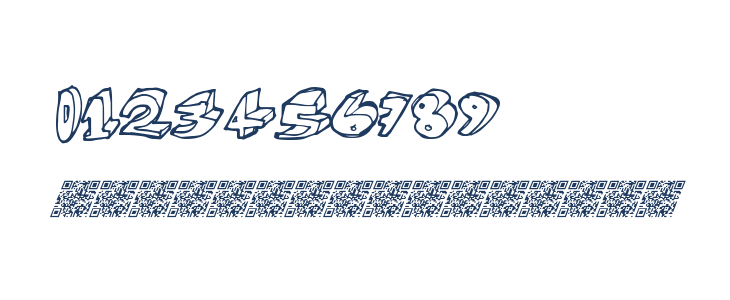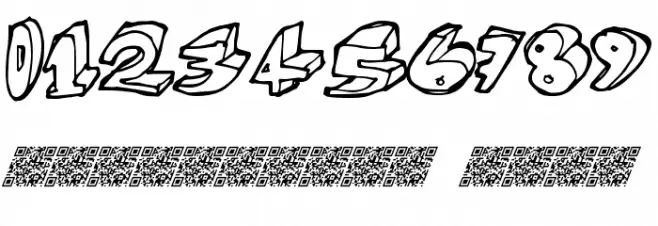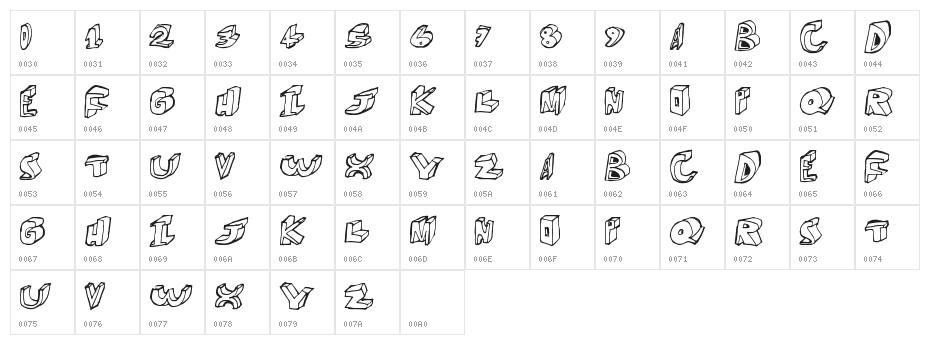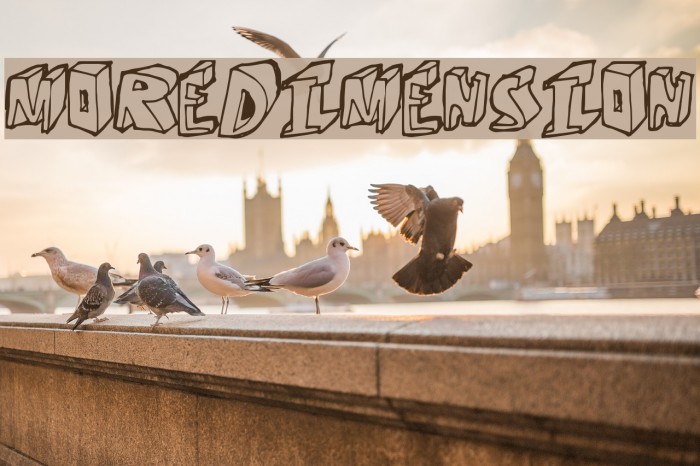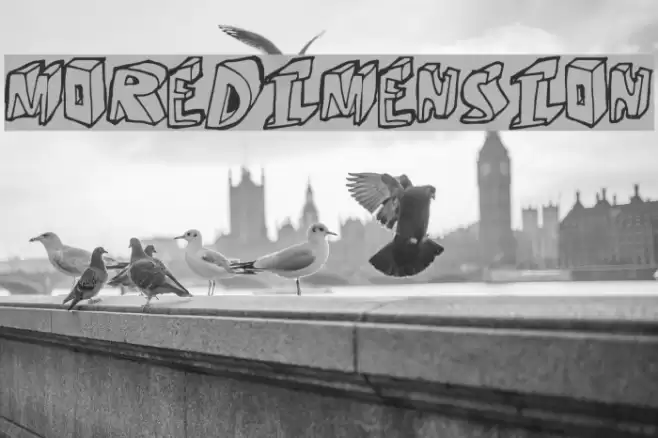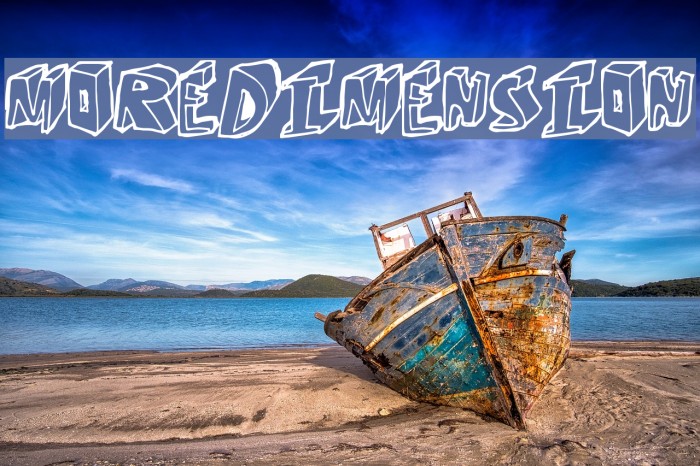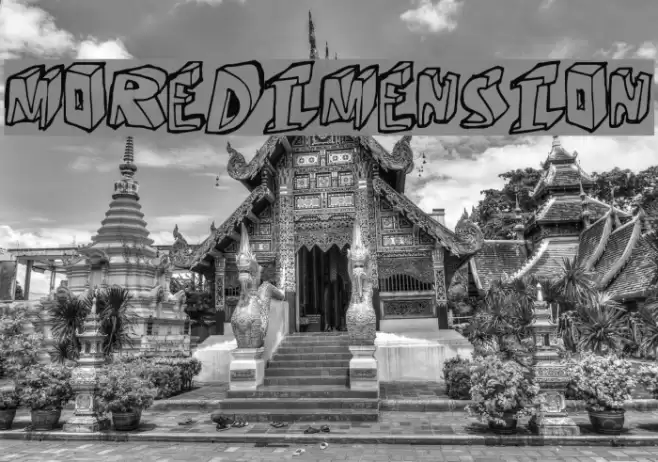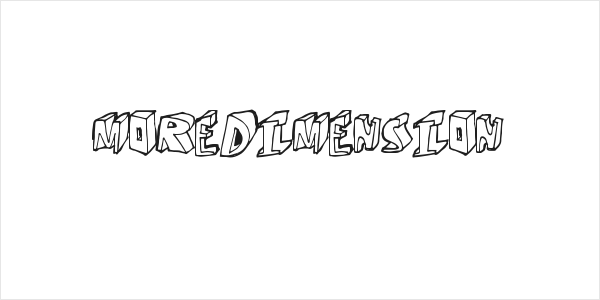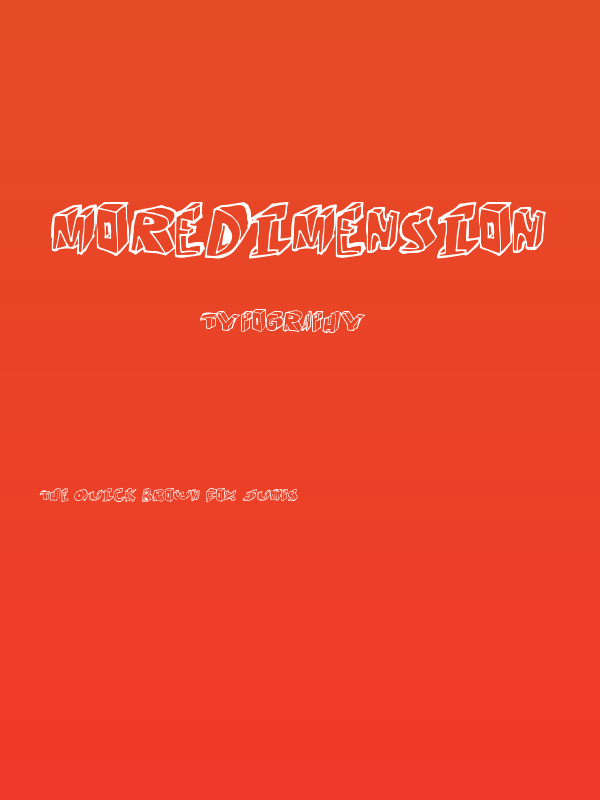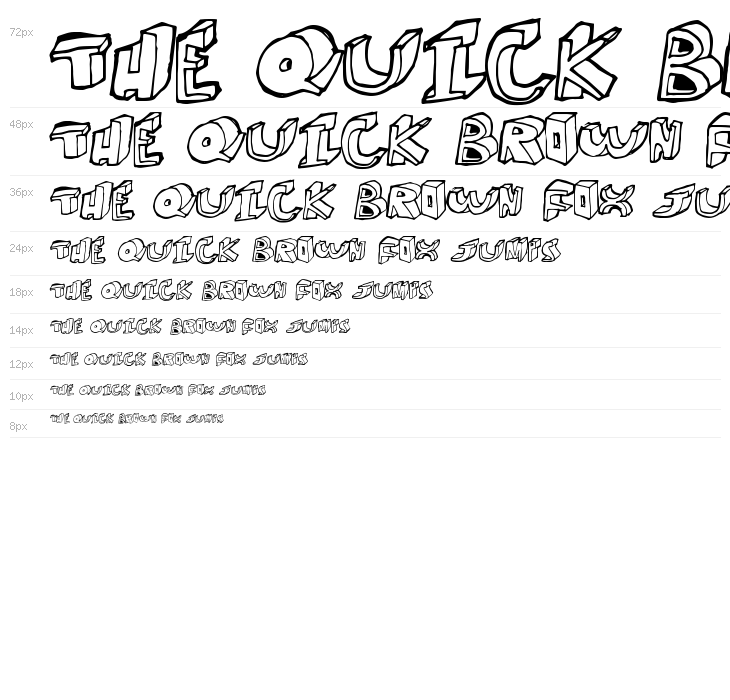
MoreDimension Font
MoreDimension Description
This font features a bold, three-dimensional style that gives each character a dynamic and eye-catching appearance. The letters are designed with a shadow effect, creating a sense of depth and movement. The strokes are thick and consistent, contributing to a strong visual impact. The playful and artistic design makes it suitable for creative projects. Each character is distinct, with angular edges and a slightly irregular form, adding to its unique charm. The font is ideal for use in designs that require a standout, decorative element.
| Proposed Projects | Ideal for posters, headlines, logos, and any project that requires a bold, artistic touch. |